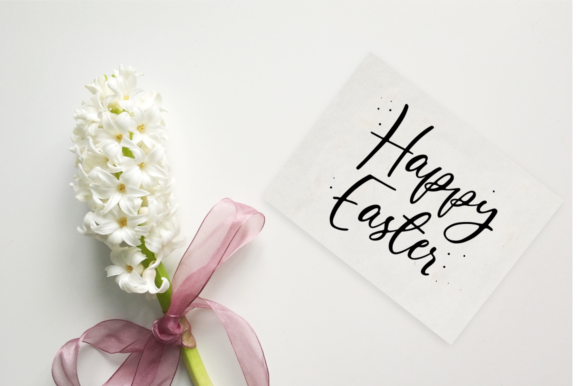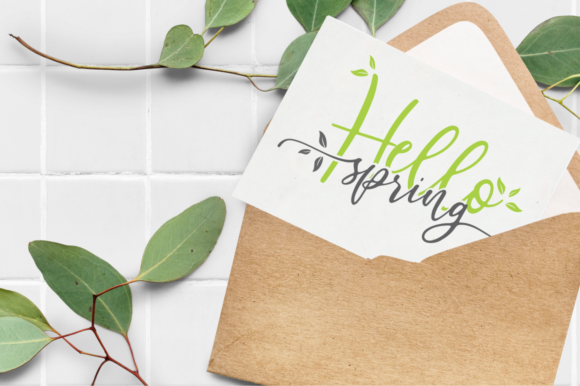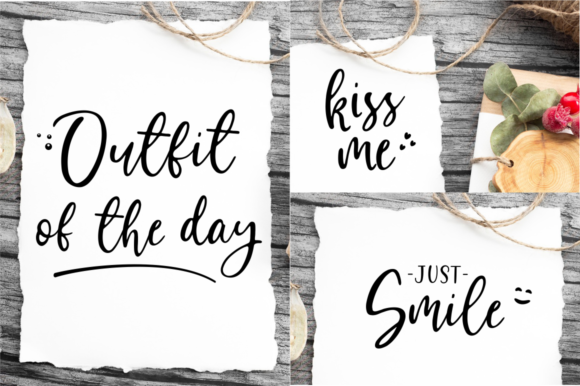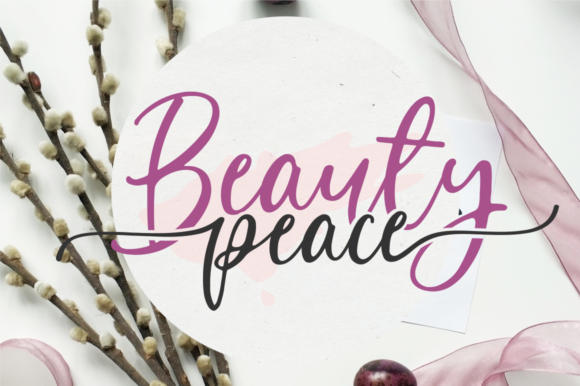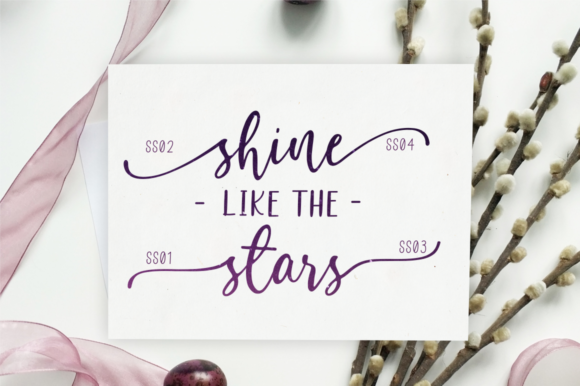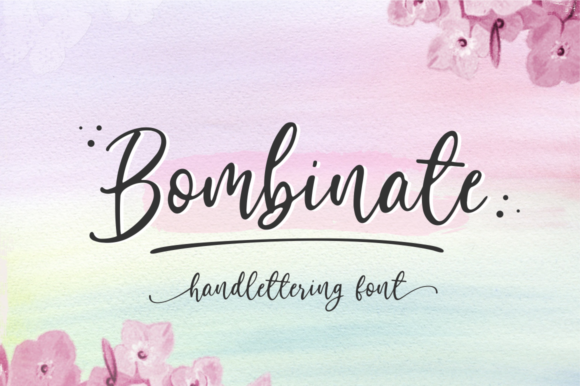
Bombinate Font: Elevate Your Designs with a Fresh and Modern Handwritten Style
In the world of design, typography plays a crucial role in conveying the tone and aesthetic of a project. A font can make or break the visual appeal of a design, and that’s where the Bombinate Font comes in. This fresh and modern font is taking the design world by storm with its elegant handwritten style, perfect for creating upscale and chic designs. In this article, we’ll dive into the world of Bombinate Font and explore its features, uses, and benefits for designers and crafters.
The Bombinate Font: A Fresh and Modern Handwritten Style
The Bombinate Font boasts a beautiful handwritten style that exudes a natural and elegant feel. Its unique and modern design makes it perfect for a wide range of projects, from logos and branding to invitations, stationery, and wedding designs. The font’s fresh and playful vibe is sure to capture the attention of your audience and leave a lasting impression.
Perfect for Upscale and Chic Designs
With the Bombinate Font, you can create designs that look upscale and chic, perfect for high-end brands, luxury products, and special occasions. The font’s elegant style is versatile enough to be used in various design contexts, including:
- Logos and branding: Create a lasting impression with a unique and memorable logo that reflects your brand’s personality.
- Invitations and stationery: Add a touch of elegance to your invitations, business cards, and letterheads.
- Wedding designs: Make your wedding stationery, invitations, and decorations truly special with this beautiful font.
- Social media posts: Elevate your social media game with eye-catching posts and stories that showcase your brand’s personality.
- Advertisements: Create stunning ads that grab attention and drive results.
- Product packaging: Add a touch of luxury to your product packaging and make it stand out on store shelves.
- Product designs: Use the Bombinate Font to create beautiful product designs that reflect your brand’s style and aesthetic.
Why Choose the Bombinate Font?
So, what makes the Bombinate Font a must-have for designers and crafters? Here are just a few reasons:
- Unique and modern design: The Bombinate Font boasts a fresh and modern design that’s sure to make your designs stand out.
- Elegant and versatile: The font’s elegant style is versatile enough to be used in various design contexts.
- Easy to read: The Bombinate Font is clear and easy to read, making it perfect for body text and headlines.
- Customizable: The font comes with a range of customization options, allowing you to tailor it to your design needs.
Tips for Using the Bombinate Font
To get the most out of the Bombinate Font, here are a few tips to keep in mind:
- Pair it with complementary fonts: Combine the Bombinate Font with complementary fonts to create a unique and harmonious design.
- Experiment with colors and textures: Add depth and interest to your design by experimenting with different colors and textures.
- Use it consistently: Use the Bombinate Font consistently across your design to create a cohesive and professional look.
In conclusion, the Bombinate Font is a fresh and modern font that’s perfect for designers and crafters looking to elevate their designs. Its elegant handwritten style, versatility, and ease of use make it a must-have for a wide range of projects. Whether you’re creating logos, invitations, or social media posts, the Bombinate Font is sure to make your designs look upscale and chic. So why wait? Get your hands on the Bombinate Font today and take your designs to the next level!